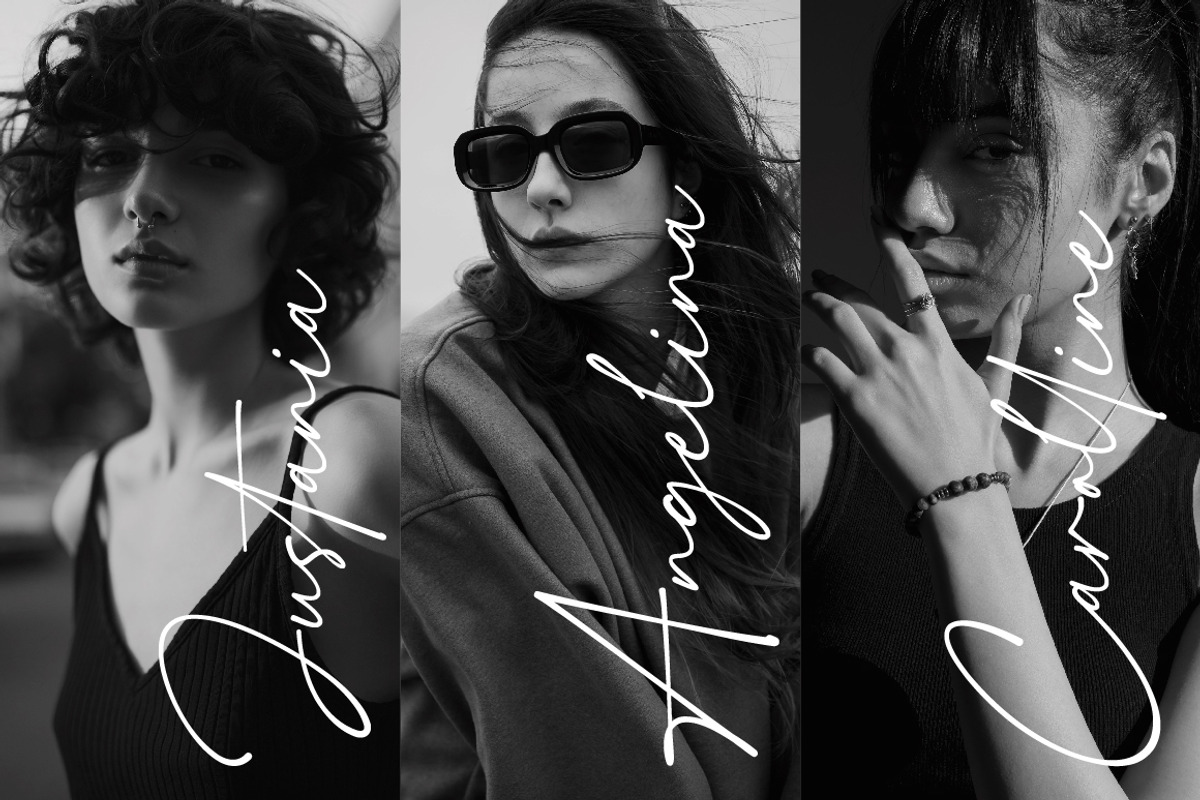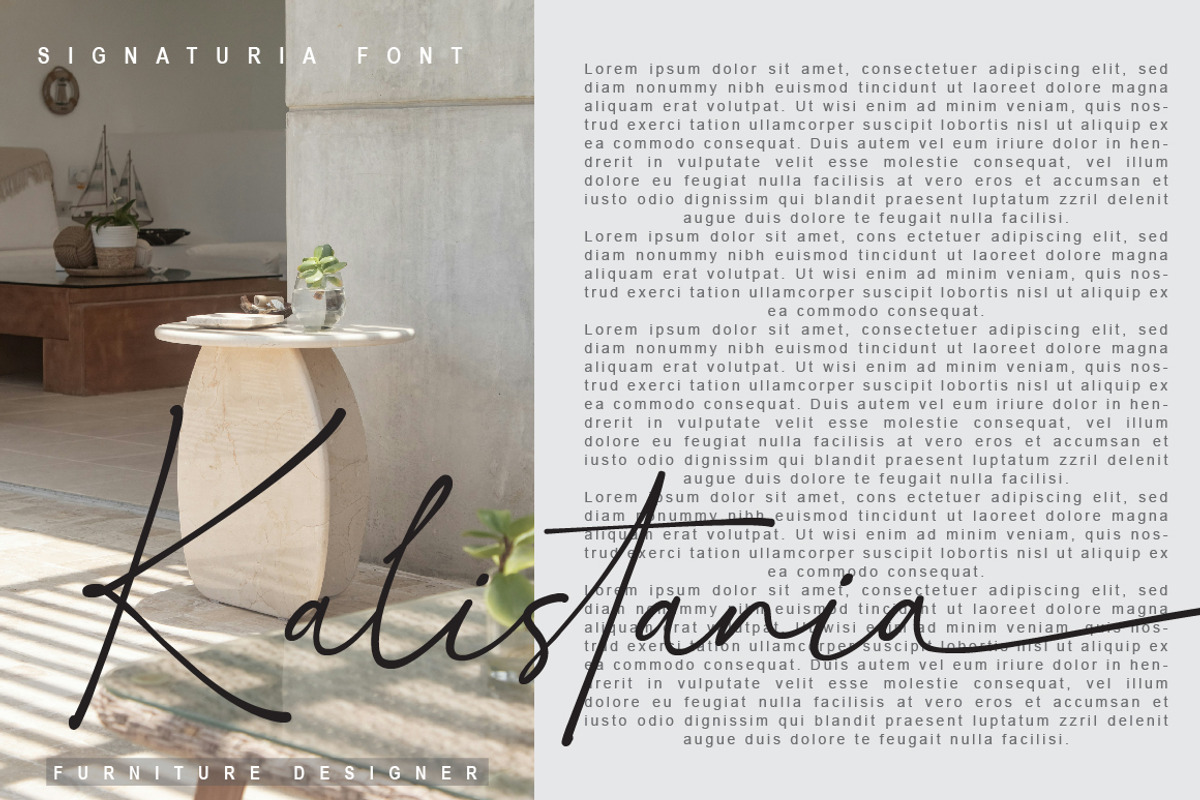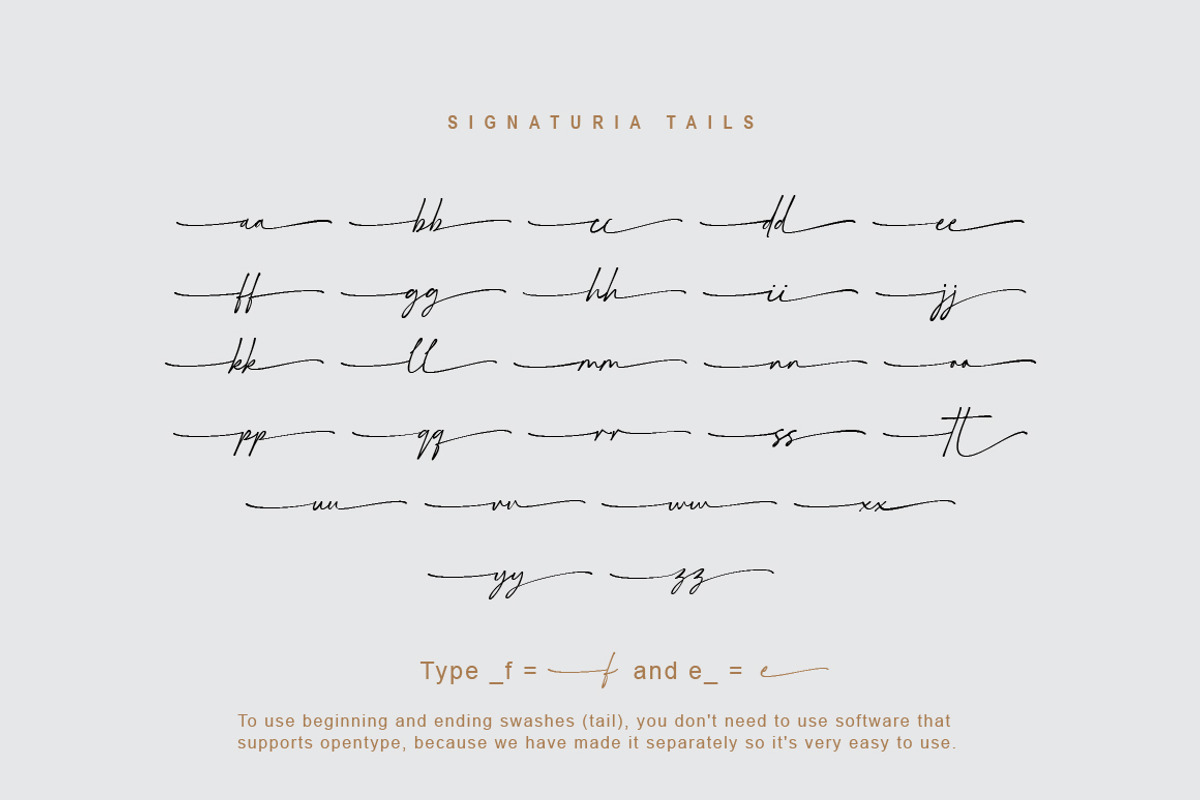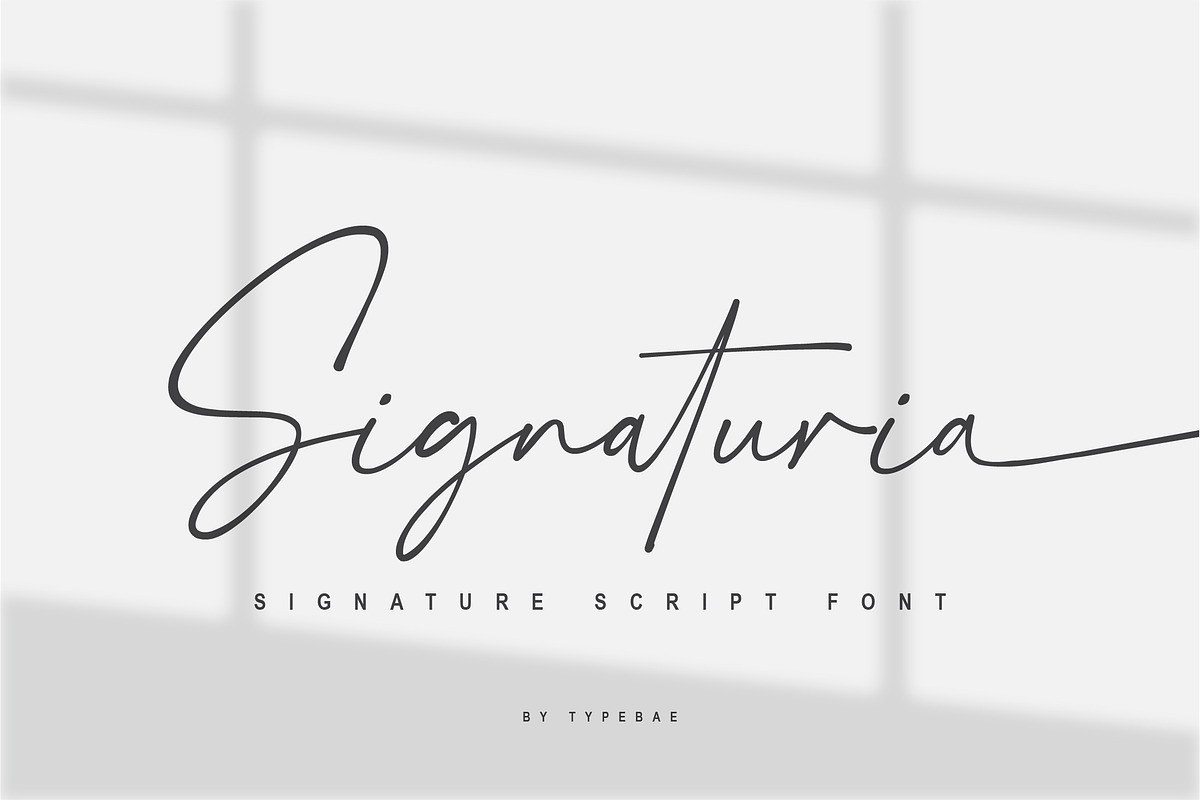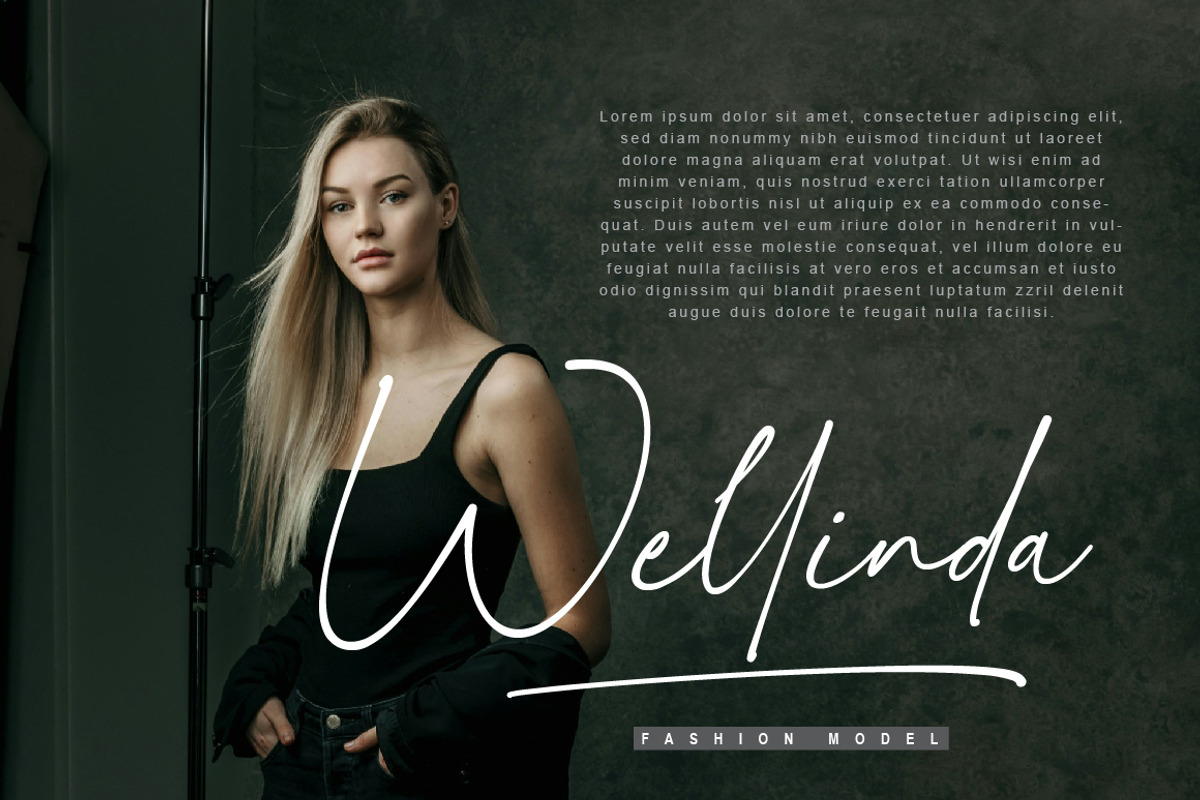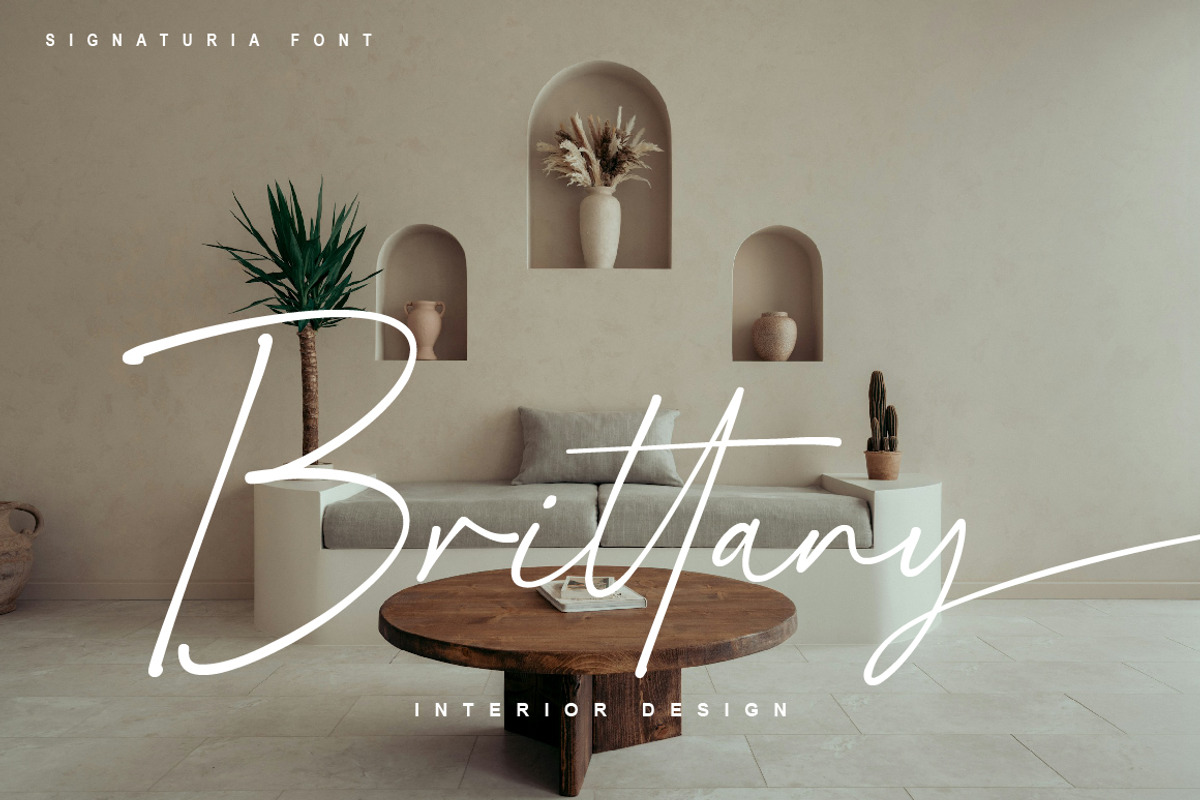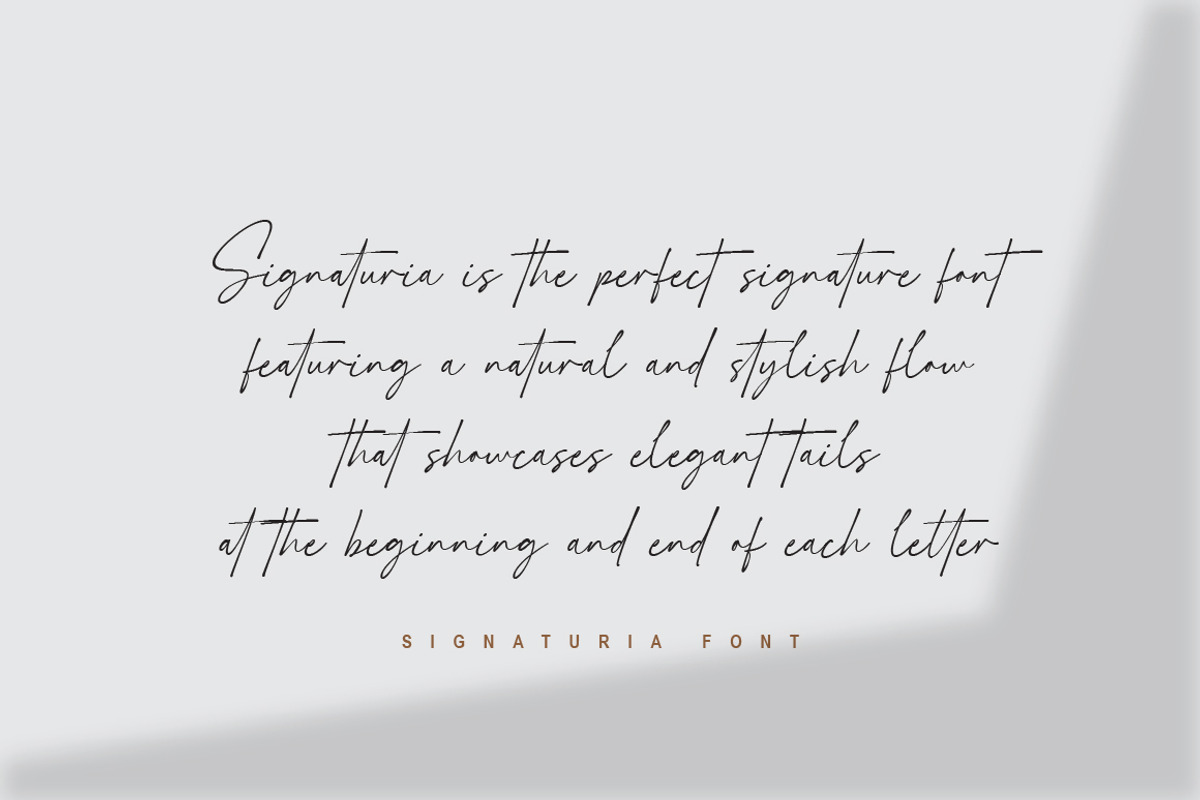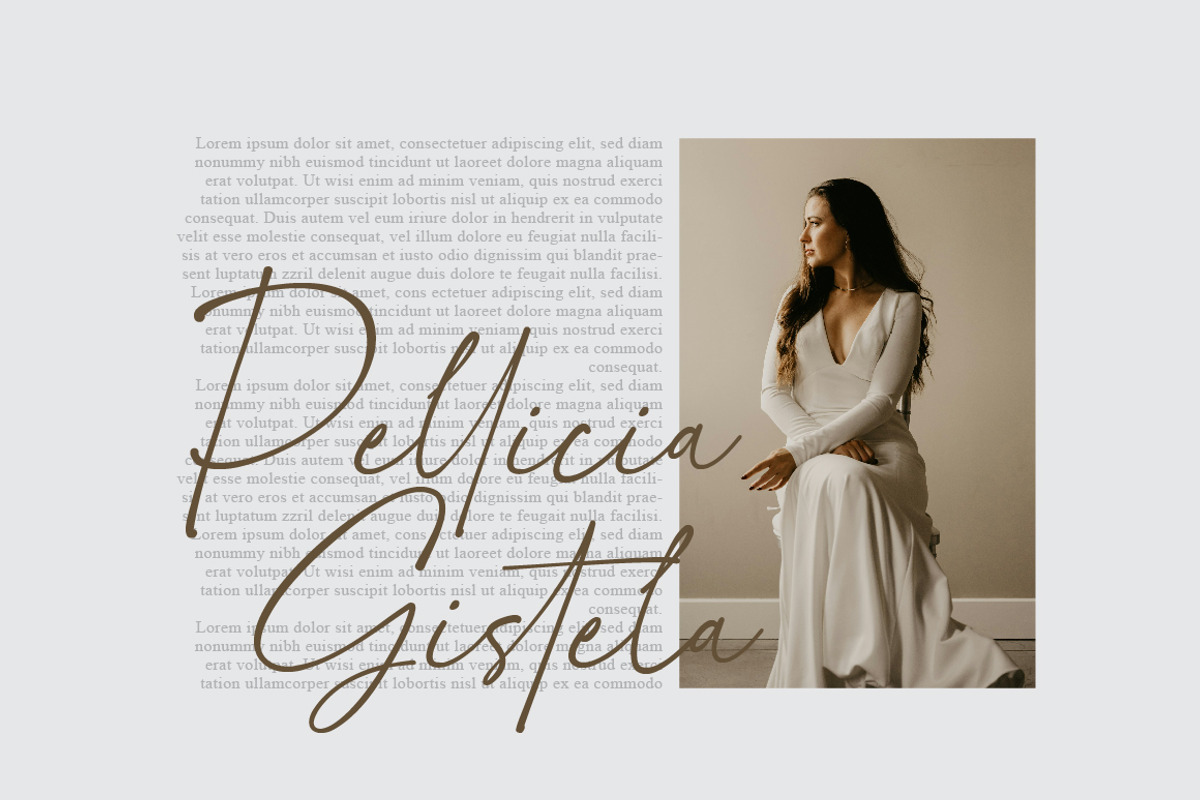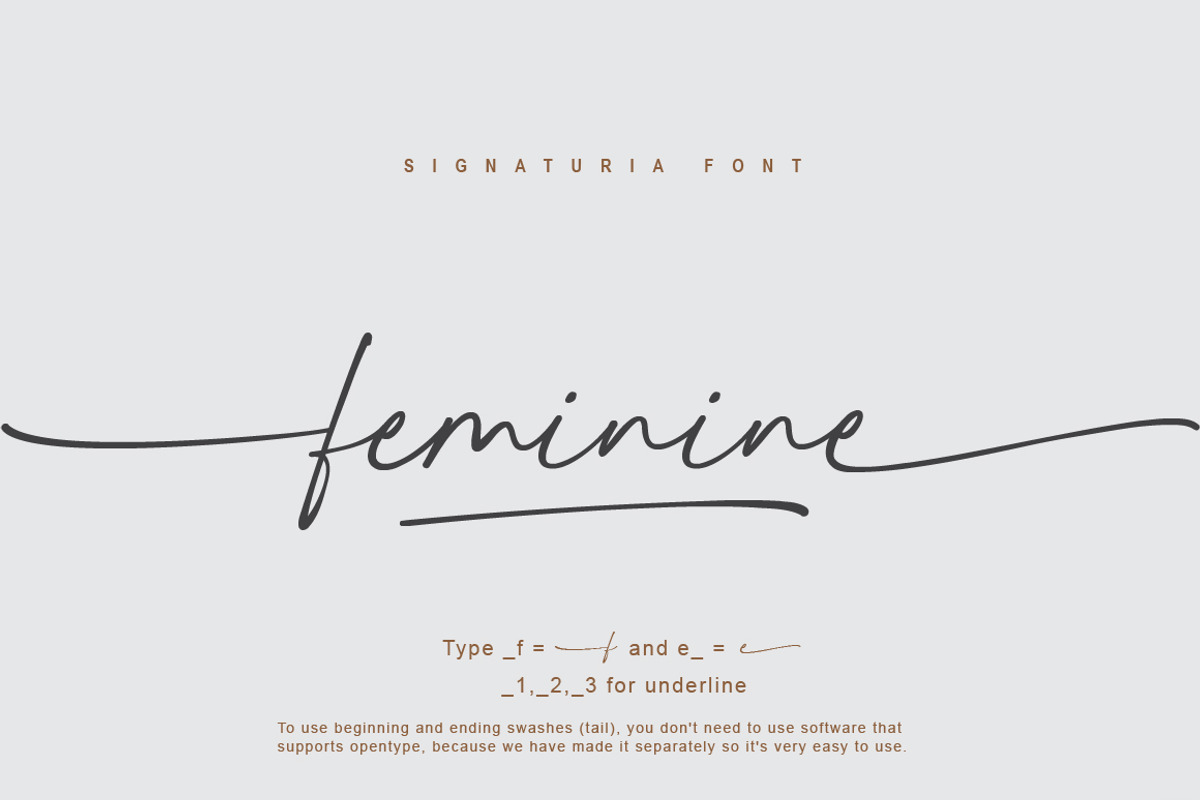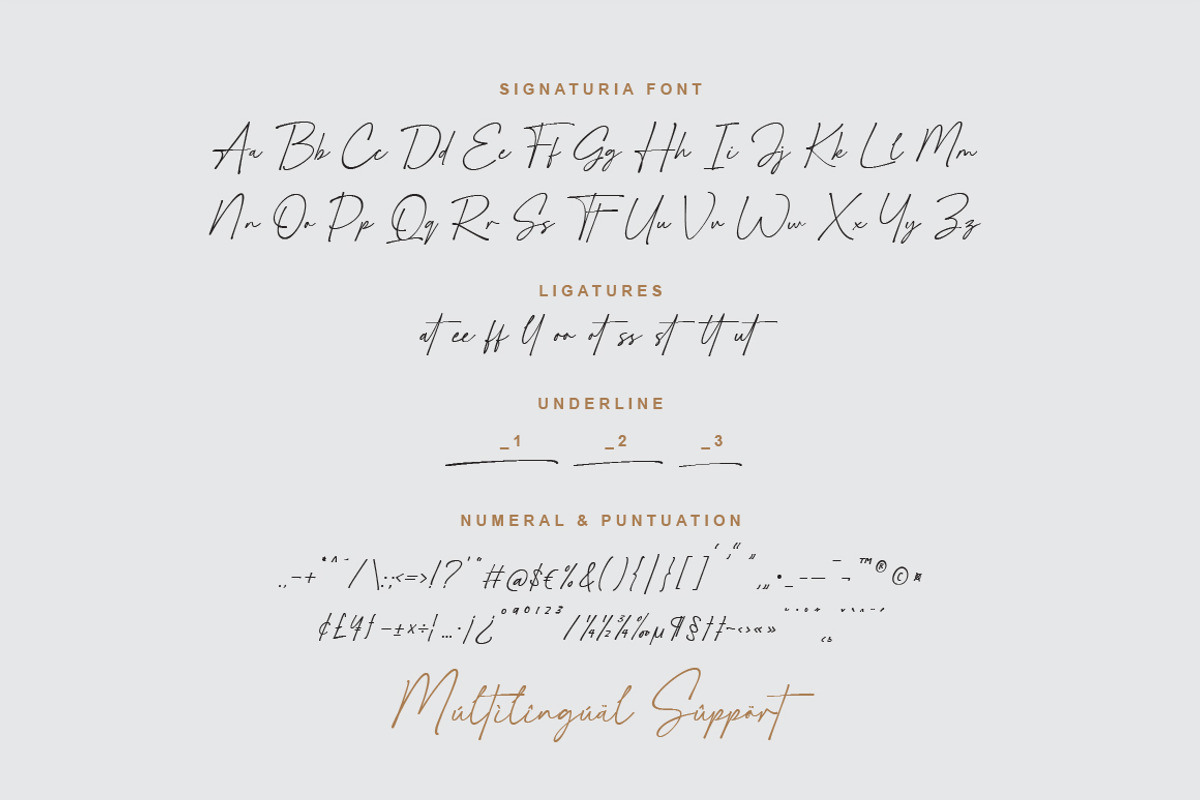
Signaturia - Handwritten Signature
Signaturia is the perfect signature font, featuring a natural and stylish flow that showcases elegant tails at the beginning and end of each letter. It provides a binding element, allowing specific letter combinations to flow seamlessly for a more natural and authentic appearance, making it suitable for various projects that require a natural handwriting touch.
To use beginning and ending swashes (tails), you don't need to use software that supports opentype, because we have made it separately so it's very easy to use.
Feature: Ligature, Stylistic Alternate, Multilingual and PUA encoded.